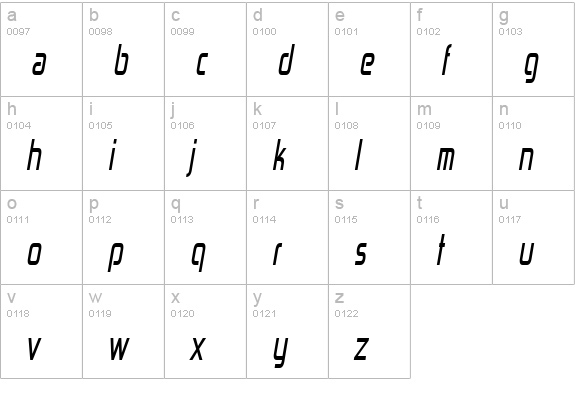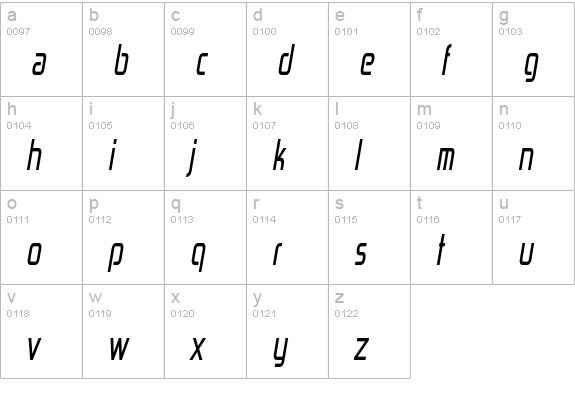
Zekton Cd Italic Font Details
Zekton Cd Italic is a distinctive, italic variant in the Zekton typeface family \xE2\x80\x94 well suited to design and typography projects.
Zekton Cd Italic is a versatile and modern font that exudes a sense of sophistication and elegance. Its sleek design and italicized style make it perfect for adding a touch of flair to any project. With its clean lines and contemporary feel, Zekton Cd Italic is sure to make a statement. The best part? Zekton Cd Italic is completely free to download at FontsMarket.com. That's right, you can elevate your designs with this stunning font without breaking the bank. Whether you're working on a professional project or a personal creative endeavor, Zekton Cd Italic is the perfect choice to add a touch of class and style. Download it today and see the difference it can make in your designs.